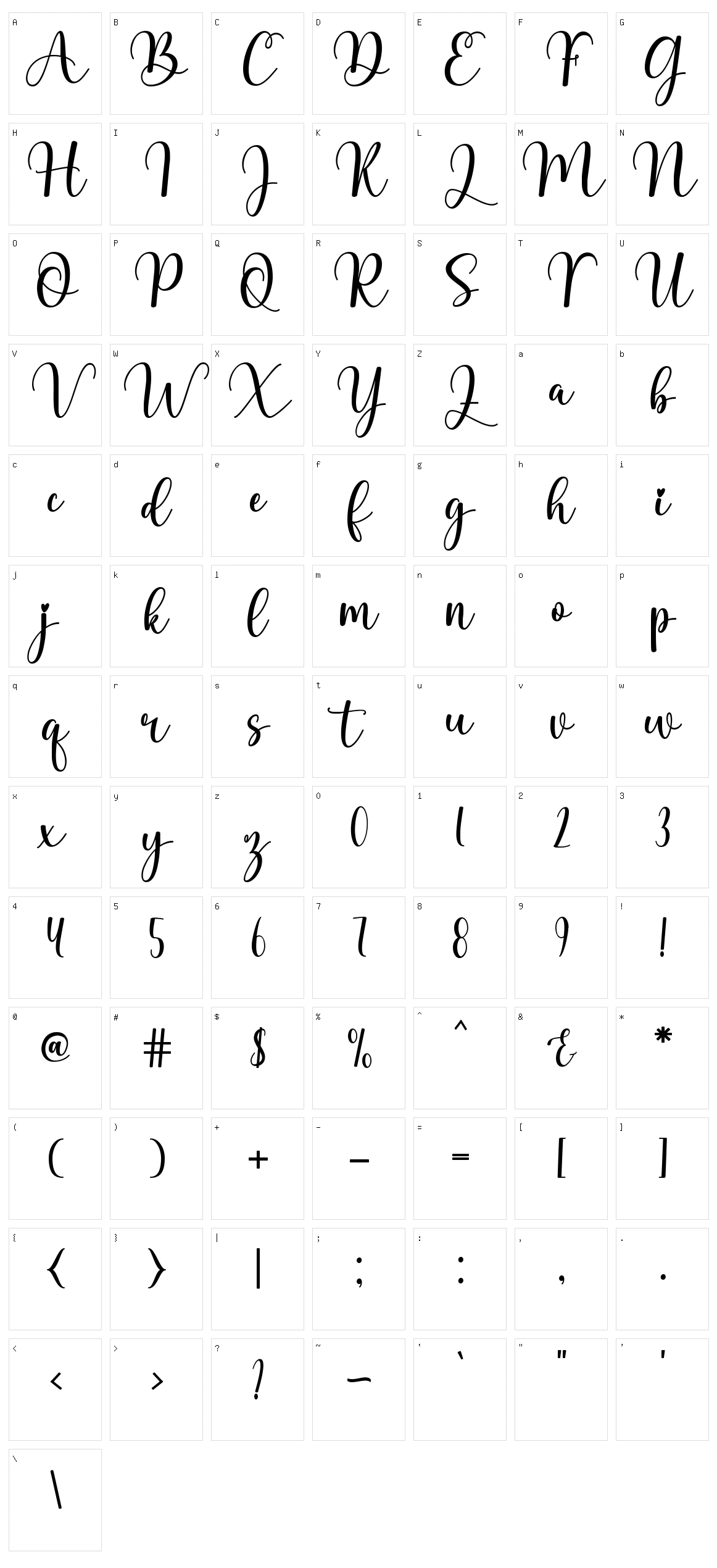
The free font Daisy is carefully designed by Fillo Graphic, showcasing a thoughtful balance of creativity and usability and falls under the Script font style. When you download the ZIP file, it contains only 357.84 KB of font files, making it lightweight and quick to download. Please review the license details below to understand permitted usage and distribution rights. If license information is not available, we recommend using this font for personal projects only or contacting the author directly for commercial usage permissions.